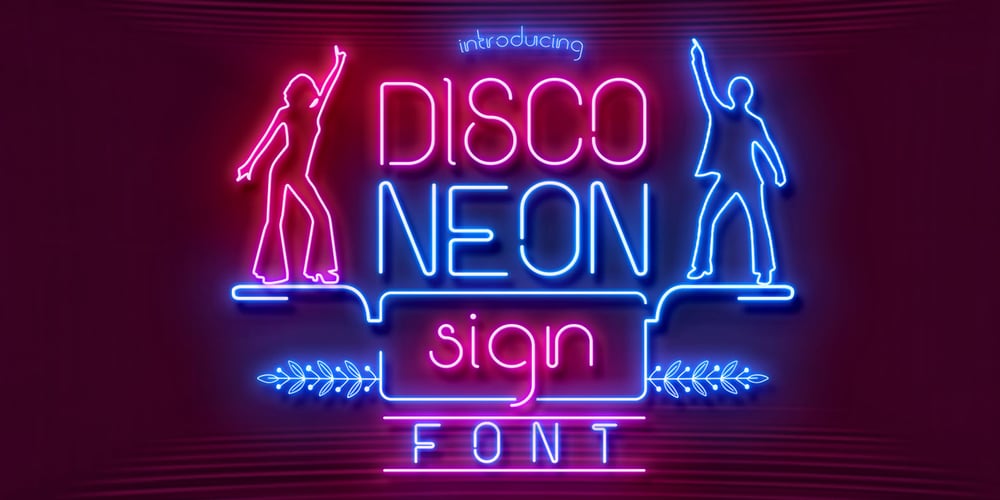
Disco Neon Sign
Disco Neon Sign font
Disco Neon Sign Font Family was designed by Mohammed Lamjidi and published by Beast Designer. Disco Neon Sign contains 1 styles and family package options. Disco Neon Sign is a nostalgic sans serif font. Carefully handcrafted to become your favorite, this font will elevate each of your design ideas.